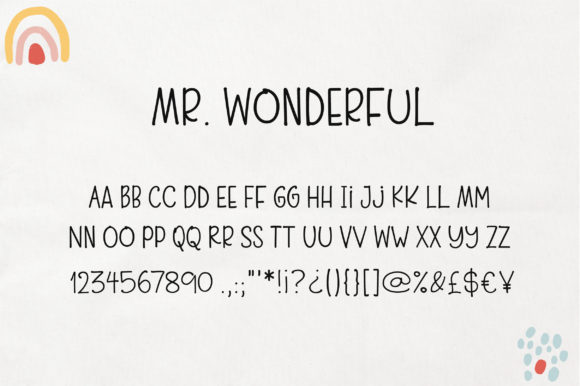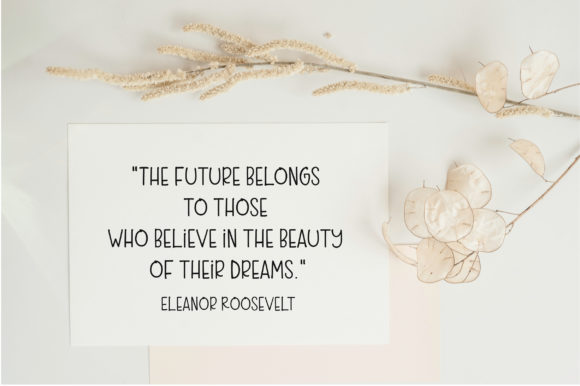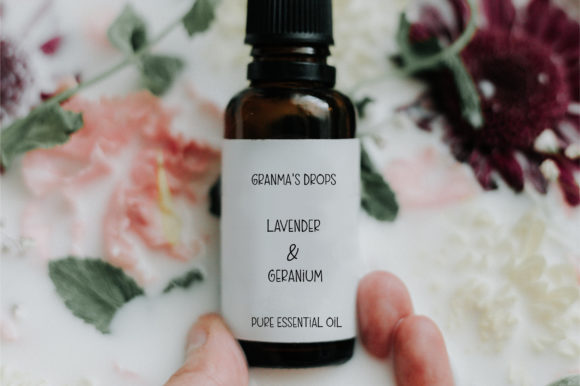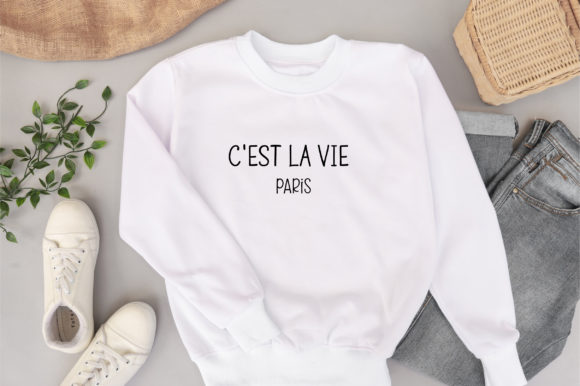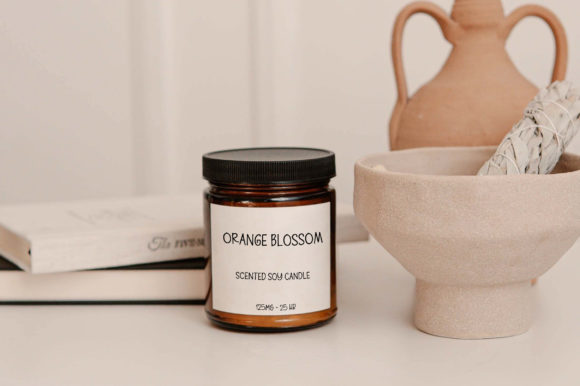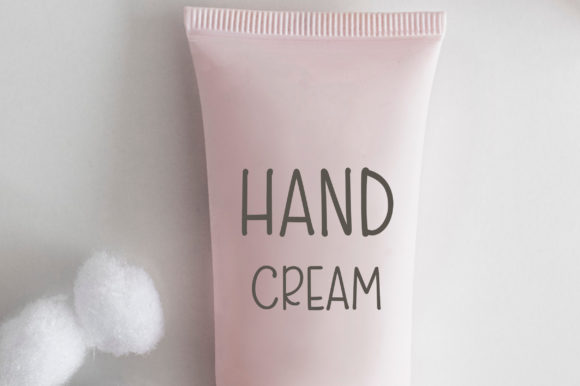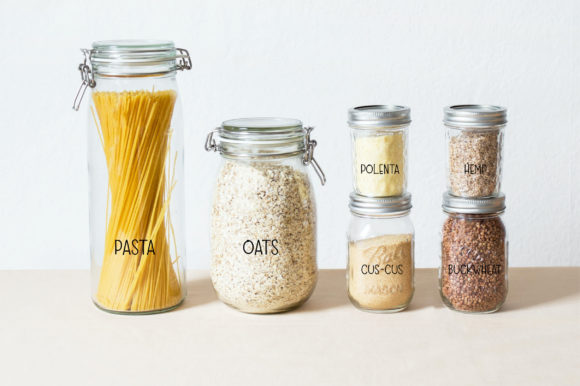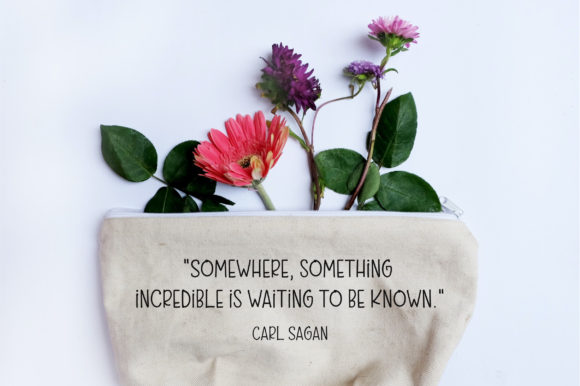
Mr. Wonderful Font
About Mr. Wonderful Font
Mr. Wonderful is a cute and simple lettered handwritten font that can be used for all chalkboard quotes or teaching material! Its authentic look will add a personal and realistic feel to your designs